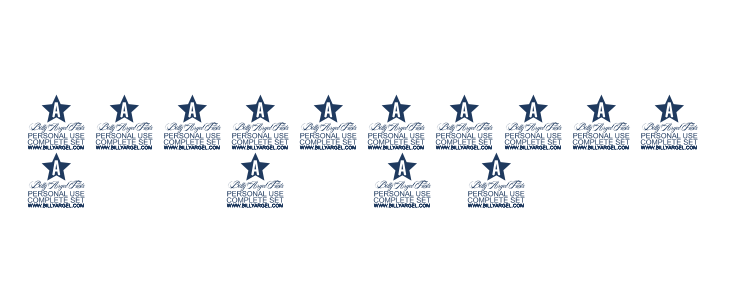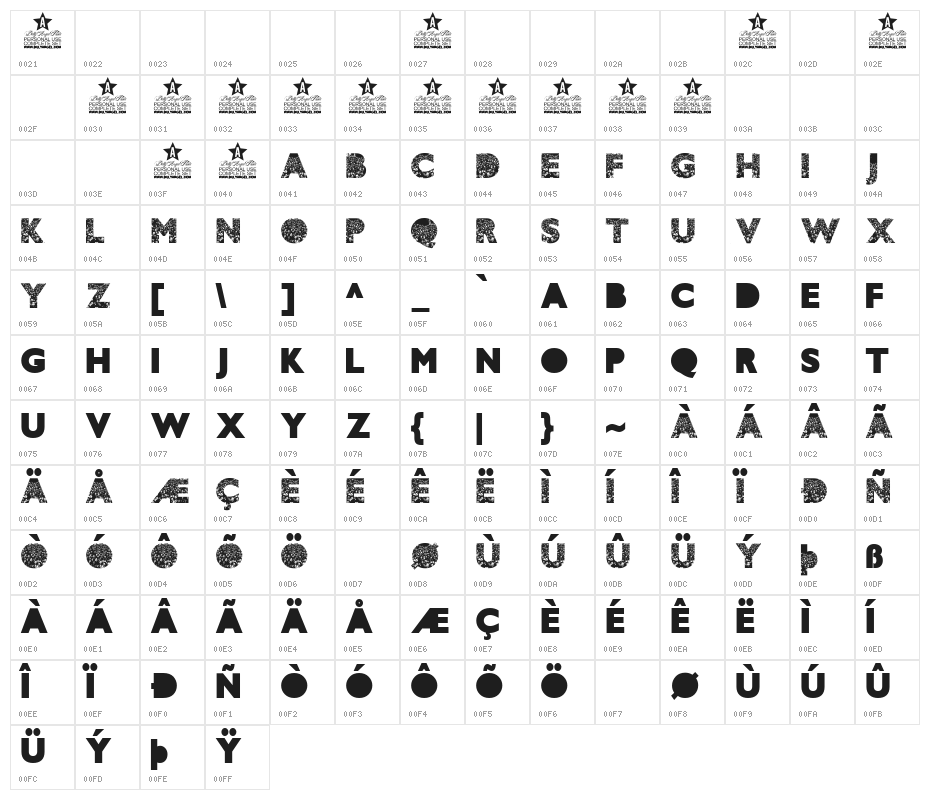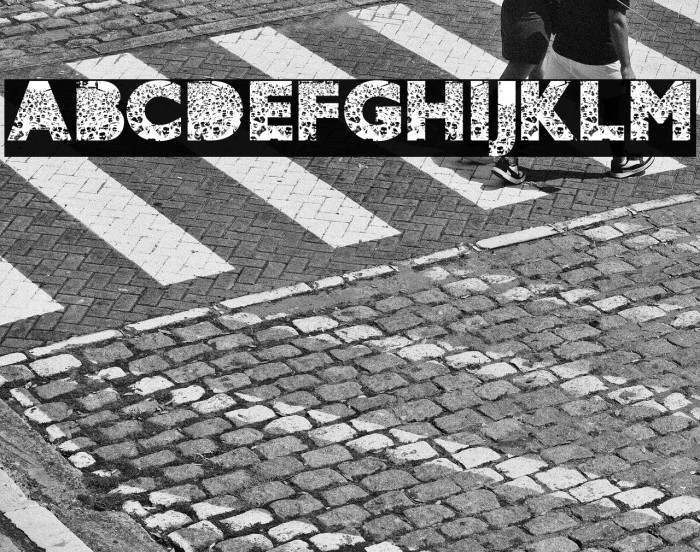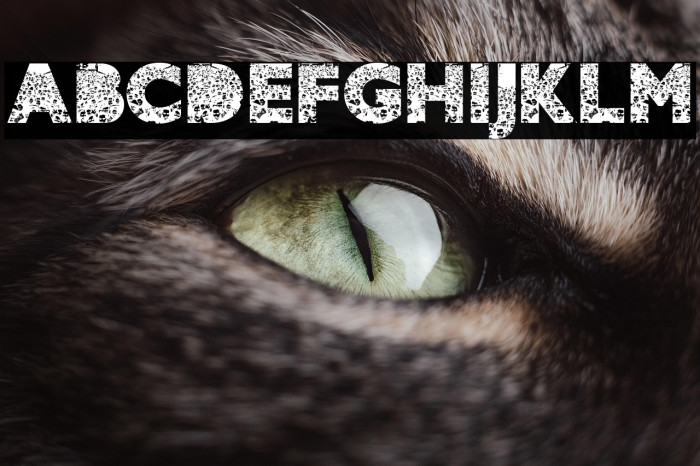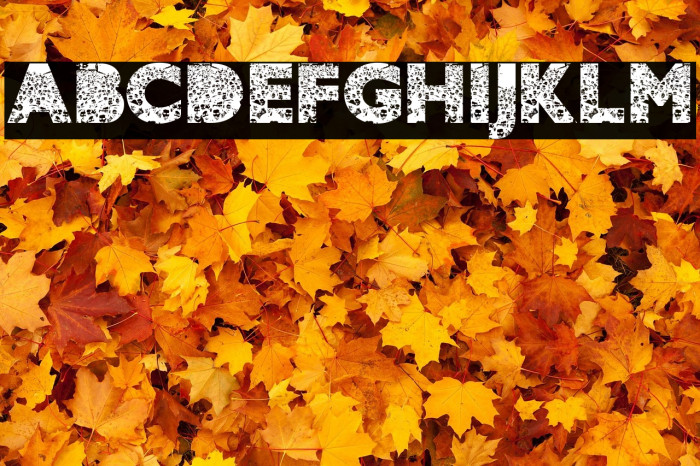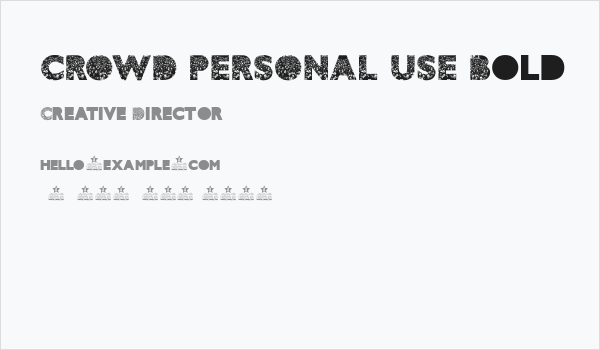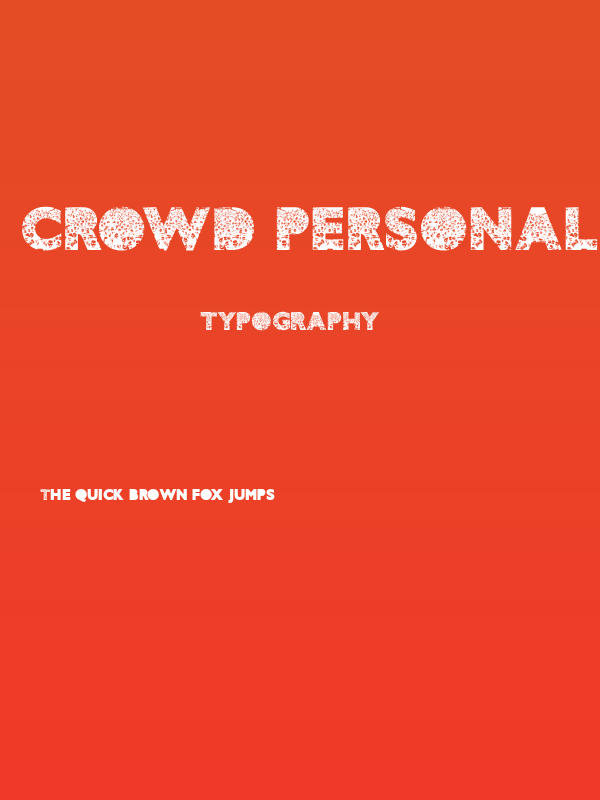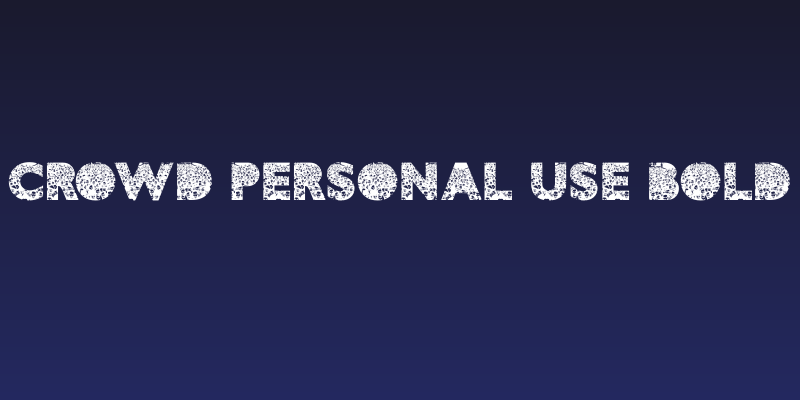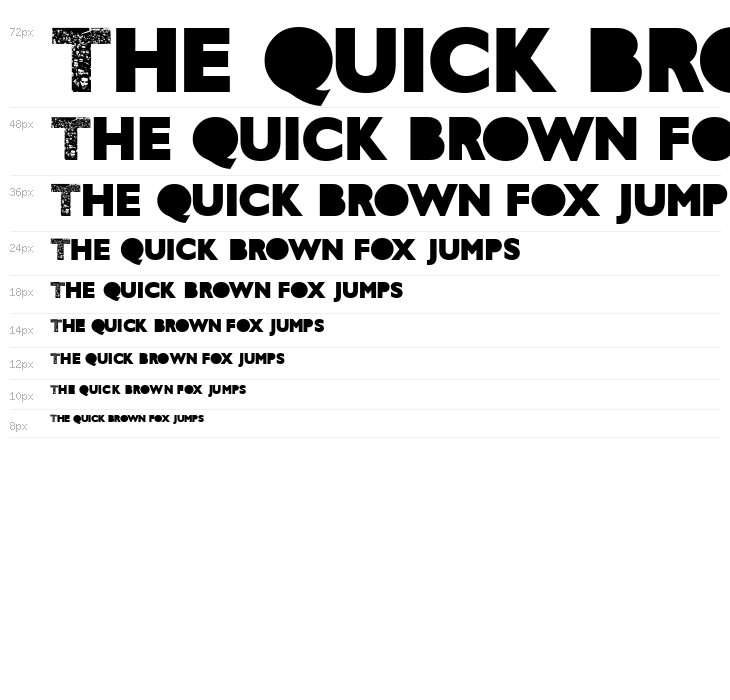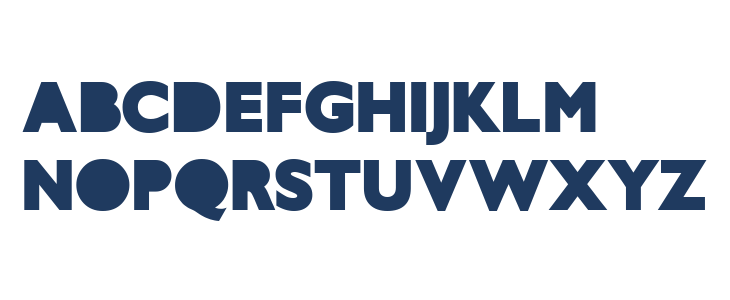
CROWD PERSONAL USE Bold Font
CROWD PERSONAL USE Bold Description
This font features a bold and impactful design, characterized by its solid, thick strokes and a unique textured pattern in the first set of letters. The uppercase letters are prominent, with a strong presence that makes them ideal for attention-grabbing headlines. The texture adds a dynamic and artistic flair, making it suitable for creative projects. The second set of letters is clean and bold, offering versatility for various design needs. The font's style is modern and decorative, with a focus on boldness and visibility. It is perfect for projects that require a strong visual impact, such as posters, logos, and branding materials.
| Proposed Projects | Ideal for posters, logos, branding, and any project requiring a strong visual impact. |